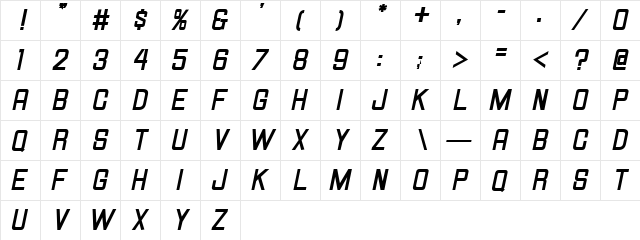
Complete HallandaleSquareBold It. JL Regular glyph index. Displaying only characters natively supported by HallandaleSquareBold It. JL Regular font.
HallandaleSquareBold It. JL is a composed and adaptable typeface that performs quietly and consistently across a wide range of design contexts. Its bold stroke weight gives it real presence on the page.